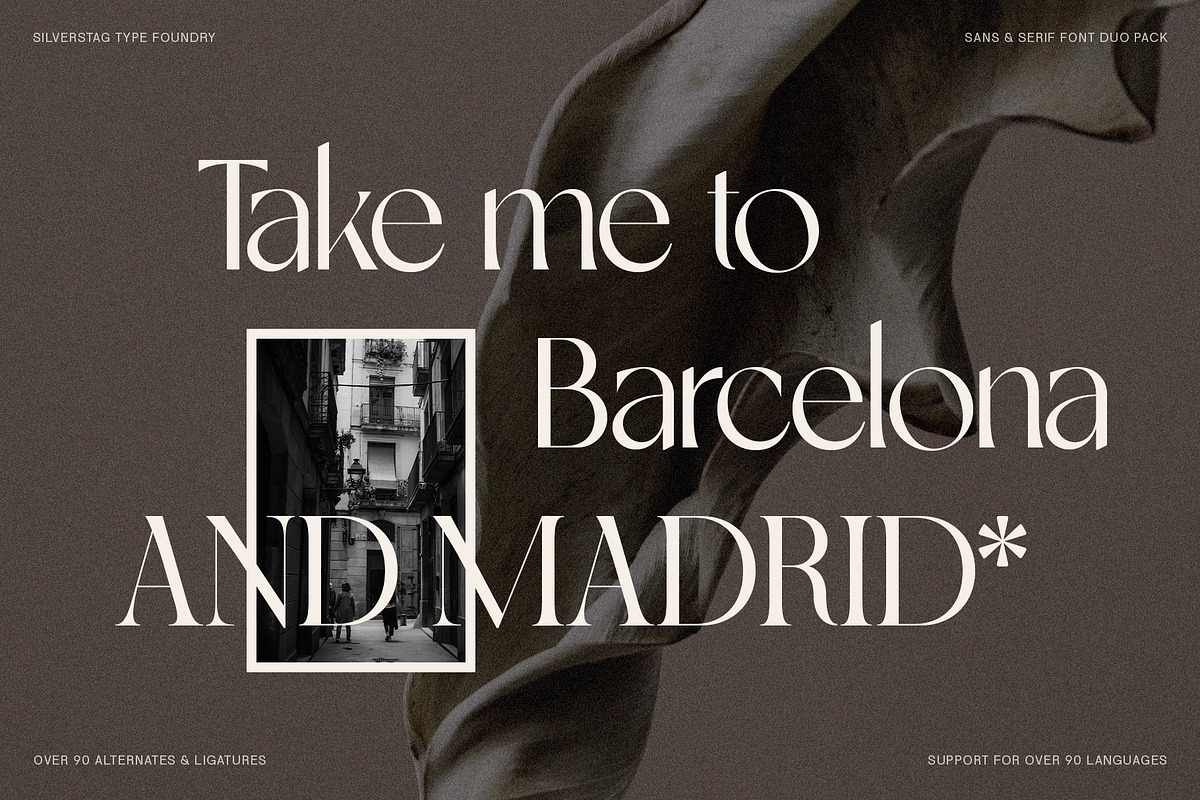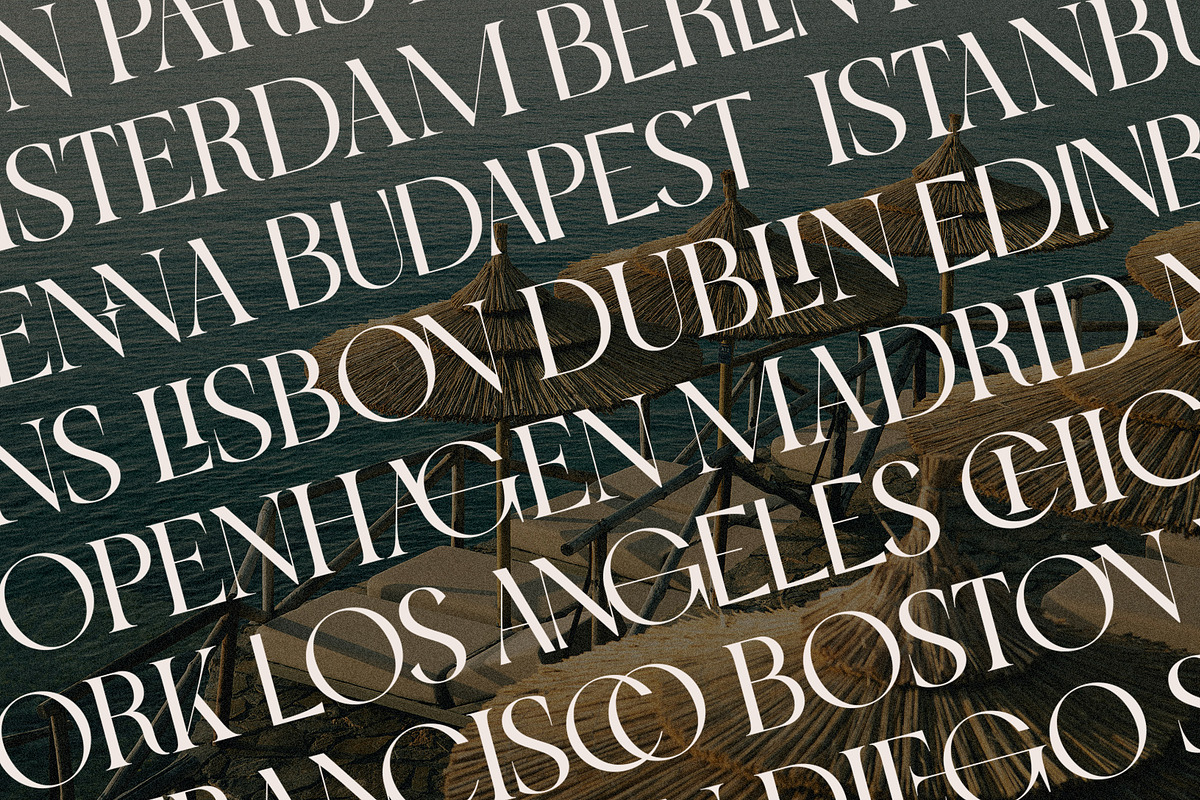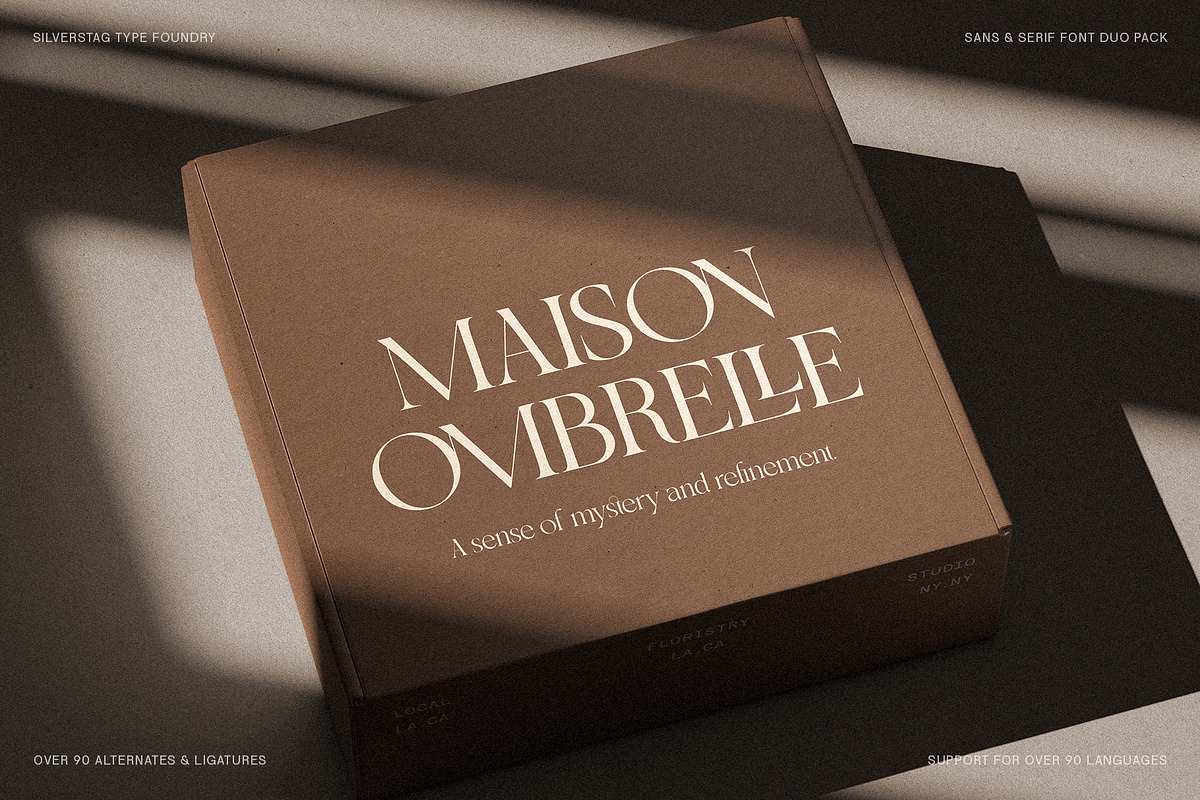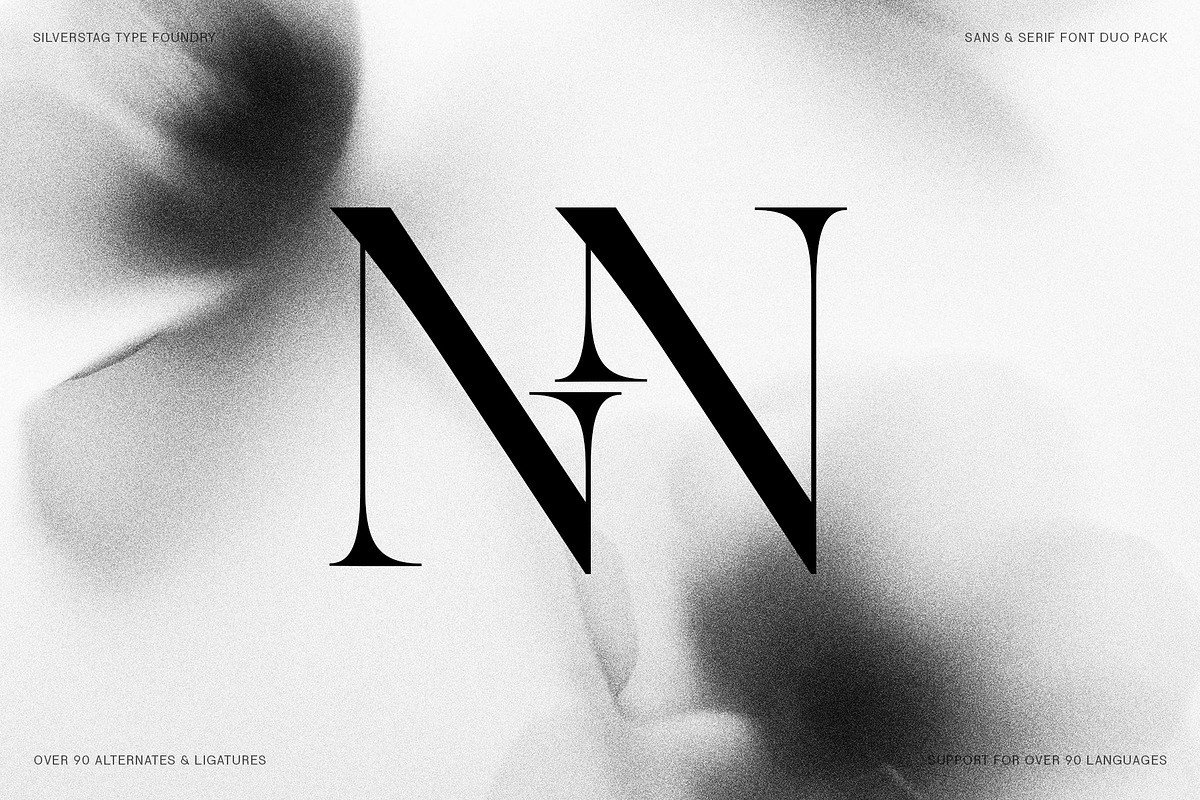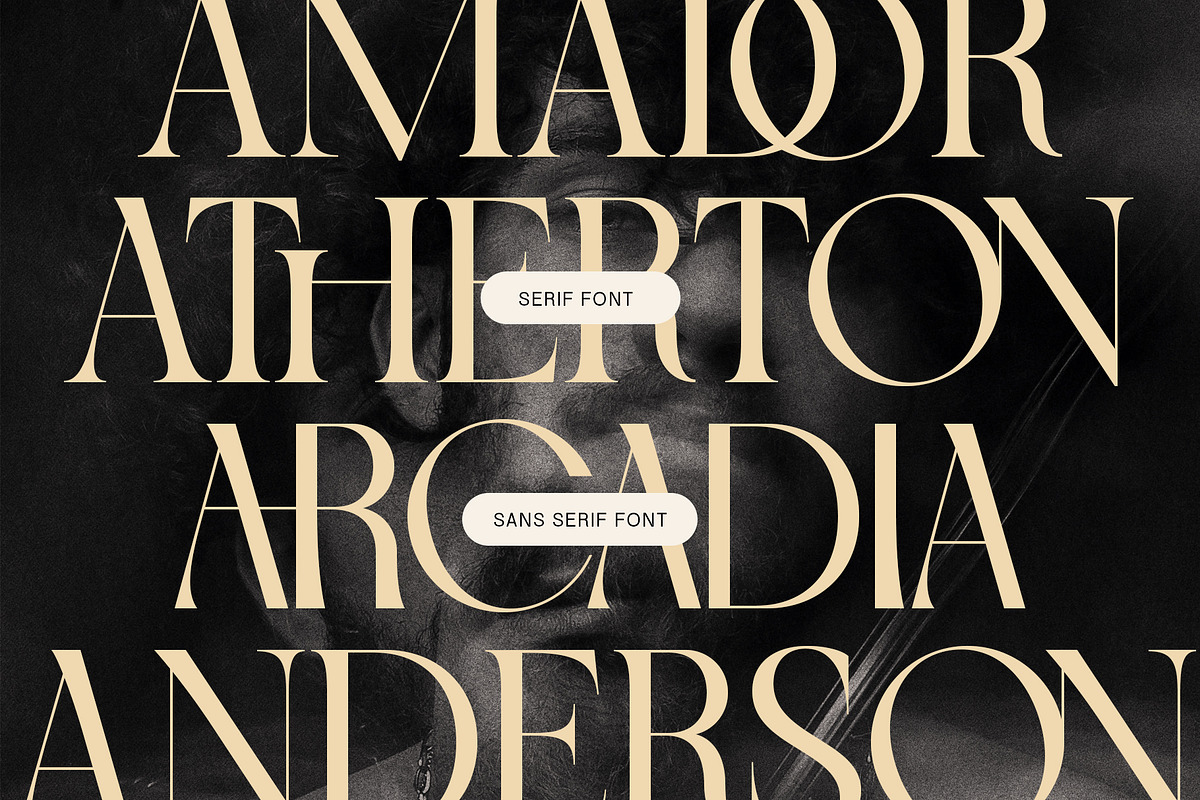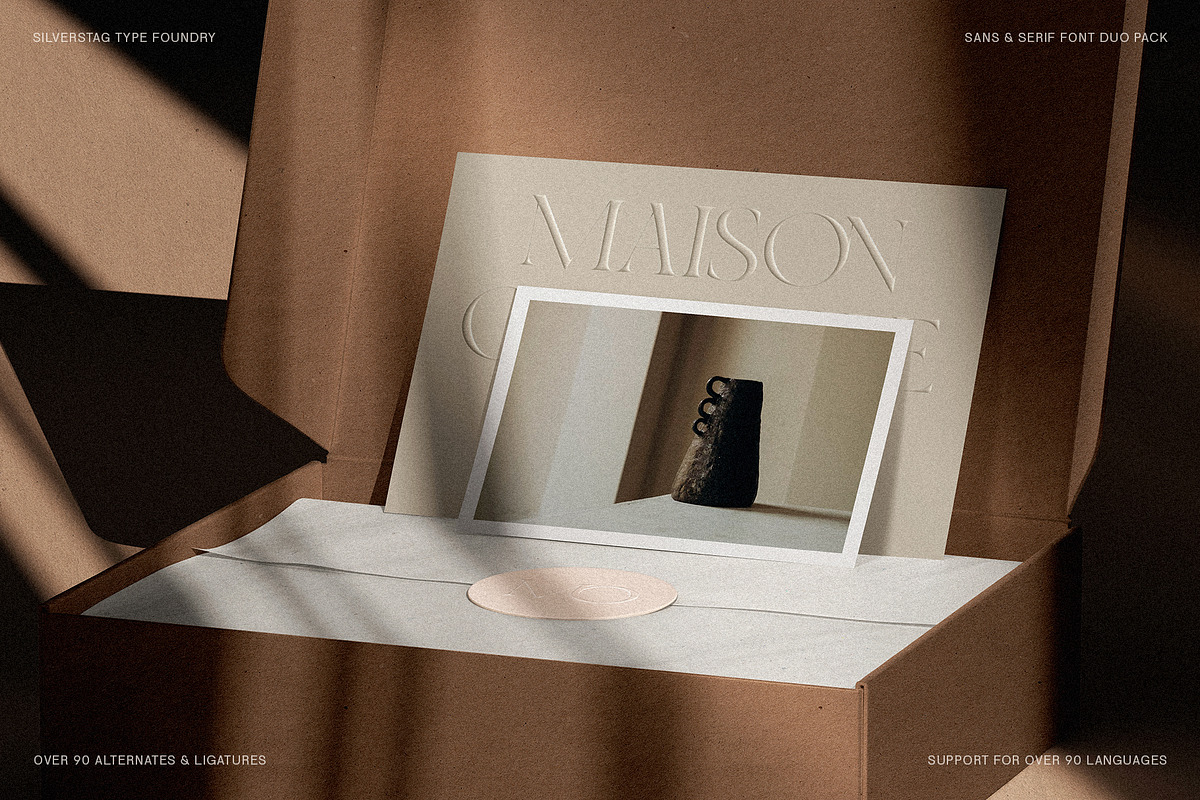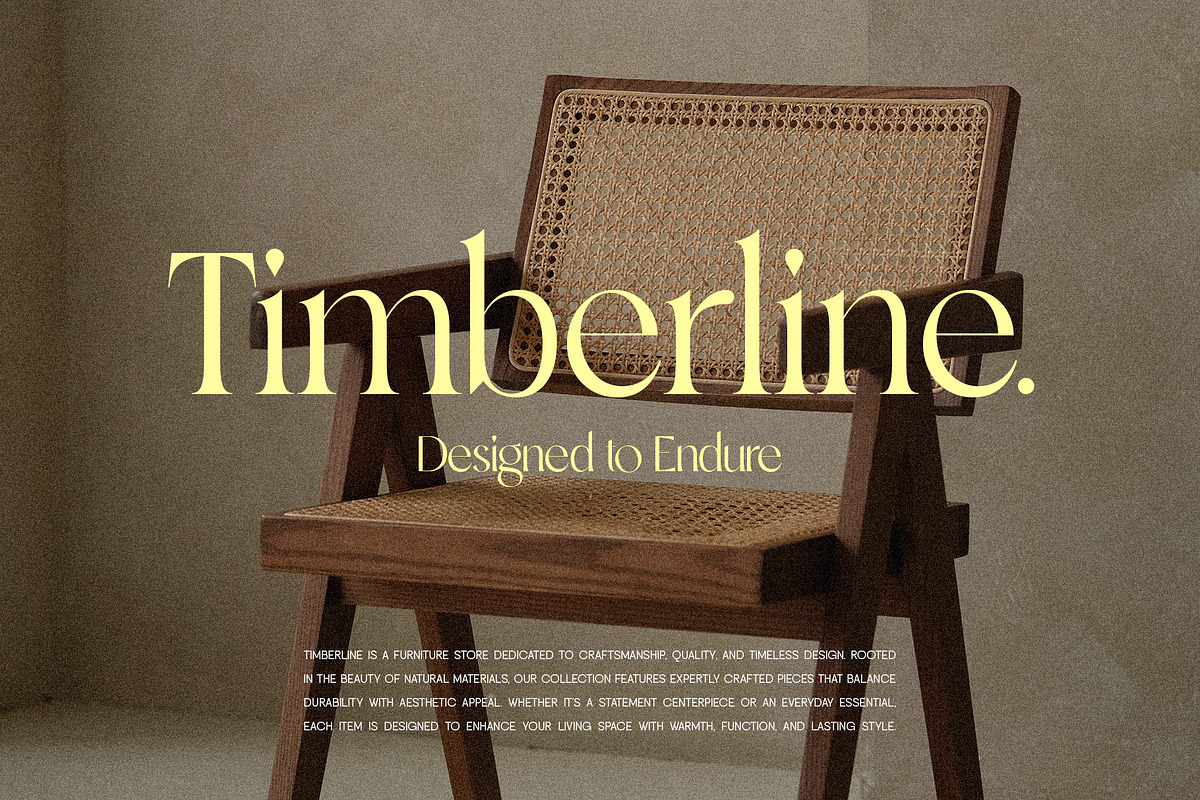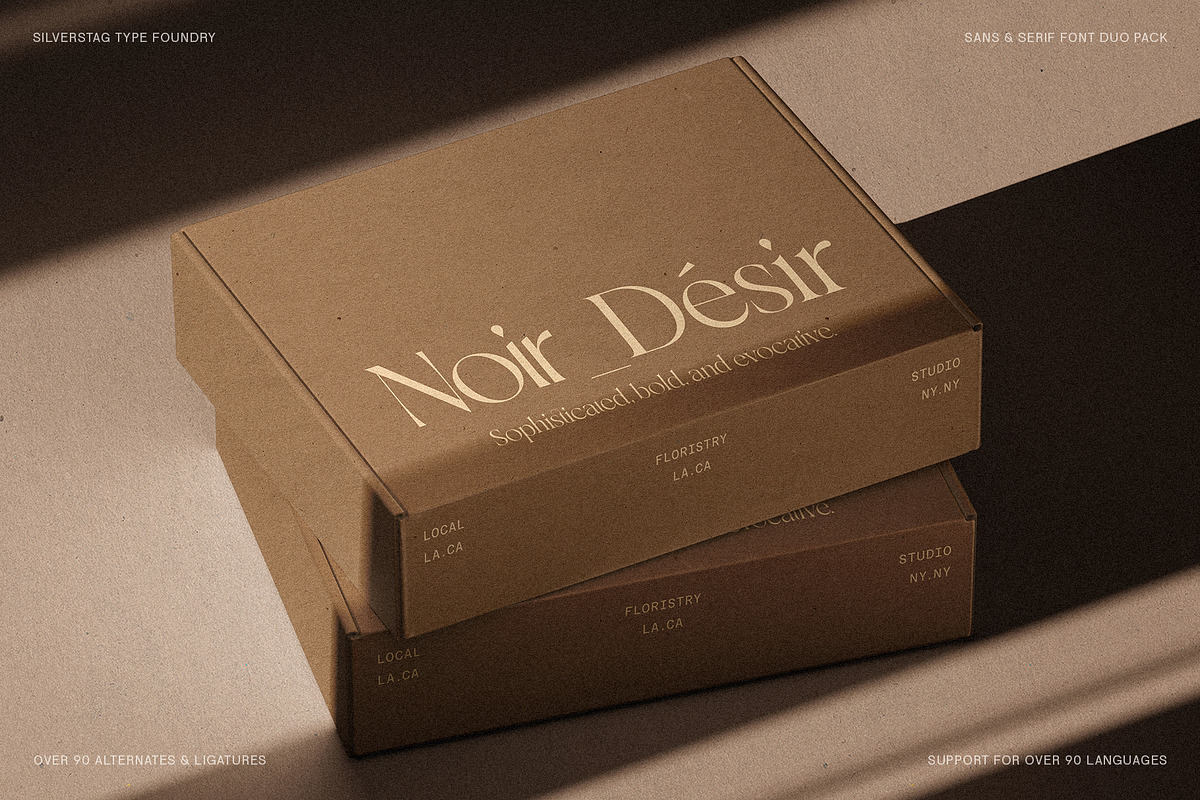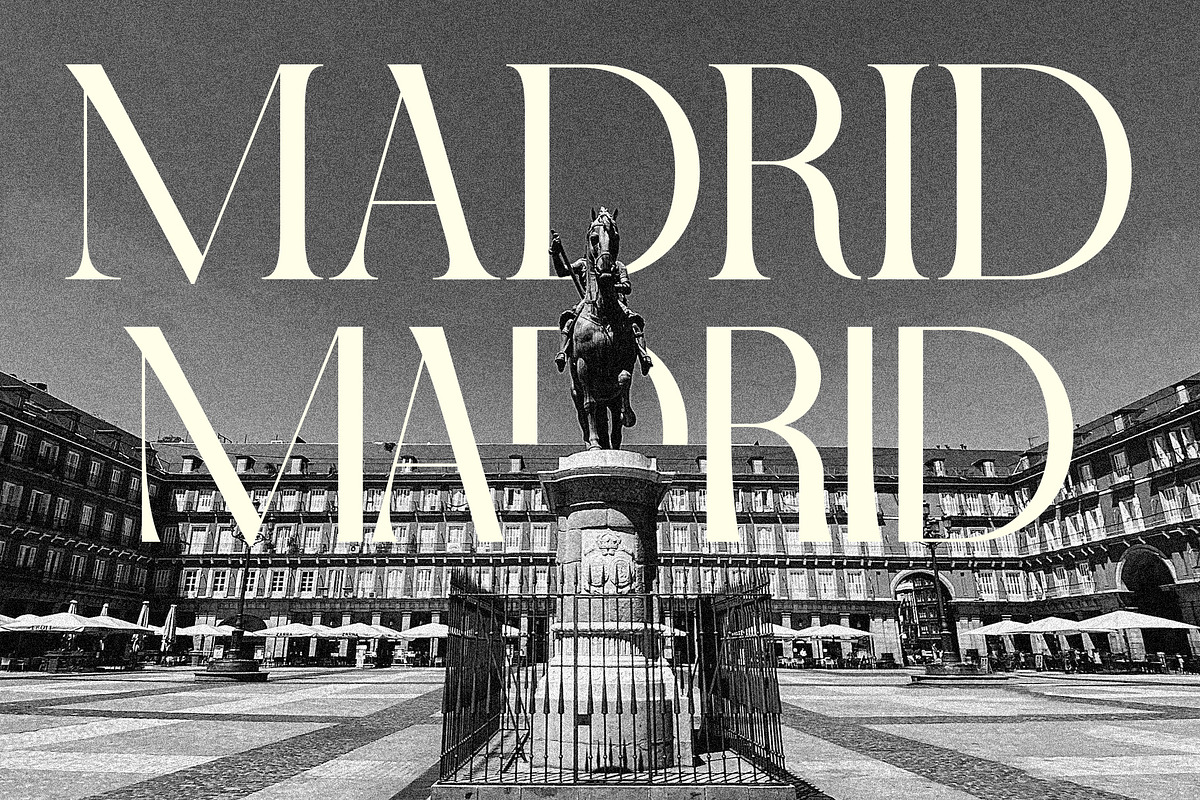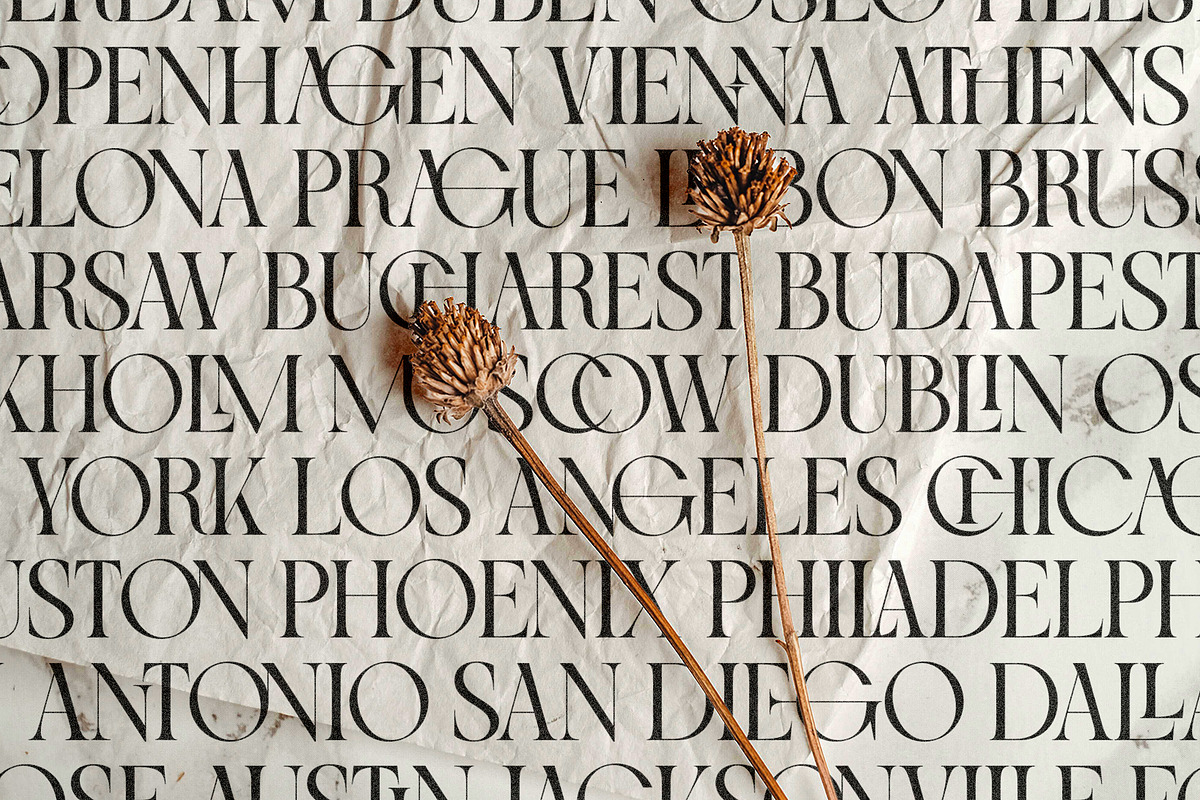
SLTF Night Windfall - Font Duo
Meet SLTF Night Windfall Sans & Serif, a seamlessly crafted font duo designed to bring contrast, versatility, and refinement to your work. Based on the beloved SLTF Night Windfall, this new release introduces a serif counterpart that perfectly aligns with the original sans, creating endless design possibilities.
With identical metrics, both fonts blend effortlessly, allowing you to mix, match, and layer them with ease. Whether you’re crafting elegant editorial layouts, high-end branding, or sophisticated packaging, this duo delivers both chic modernity and timeless charm in one package.
What’s Inside the SLTF Night Windfall Duo?
- Two perfectly complementary fonts – a sleek sans serif & a refined serif
- Over 90 meticulously crafted ligatures for fluid, custom-like typography
- Seamless pairing with identical proportions for effortless mixing
- Support for 90+ languages, covering Latin-based scripts
- Refined kerning & spacing, ensuring professional-quality typography
- Ideal for: Editorial design, luxury branding, logos, packaging, web & social media
Designed to stand alone or harmonize together, SLTF Night Windfall Sans & Serif invites you to experiment, layer, and create designs with effortless elegance and modern sophistication. Whether you prefer the clean minimalism of sans or the graceful curves of serif, this duo adapts to your creative vision.